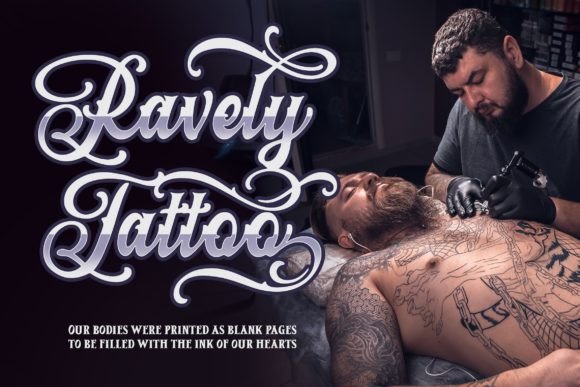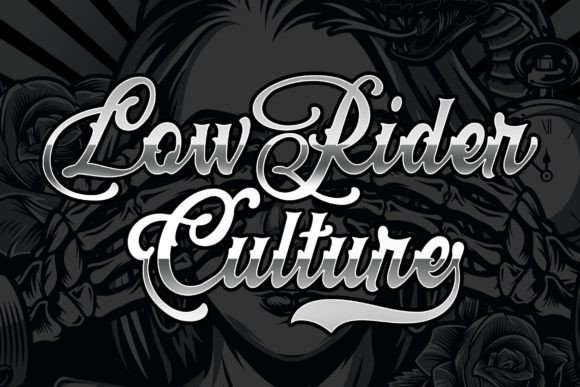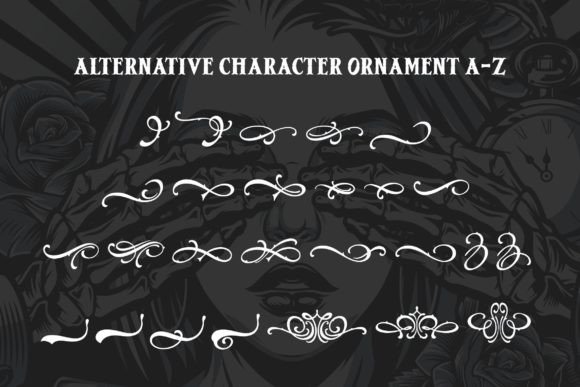
Loyalty Chicano Font
Loyalty Chicano, a Script Tattoo Blackletter Font
Loyalty Chicano was inspired by Ornamental Tattoo-style typography. This font is perfect for a design that makes it more attractive and playful. Made with a very good level of aesthetics, this font is suitable for book covers, children’s books, comics, posters, packaging, merchandise, logotypes, and much more.